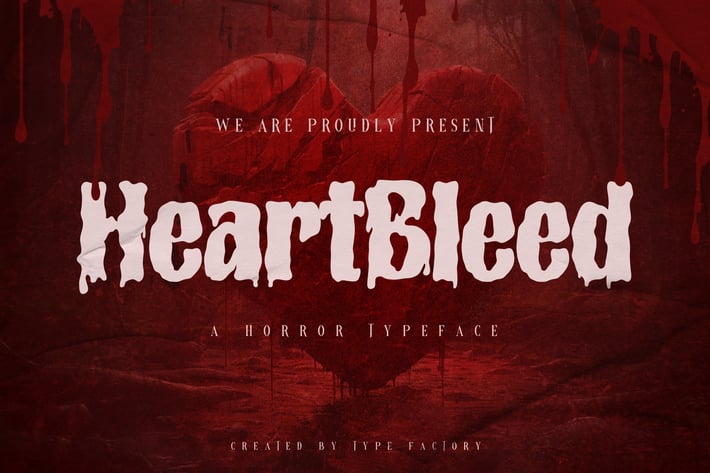
Heartbleed - A Horror Typeface
Heartbleed is a chilling horror typeface designed to evoke fear and unease. With its sharp, dripping letterforms that mimic blood and its dark, sinister aesthetic, Heartbleed is perfect for horror movie posters, haunted house promotions, Halloween designs, and eerie book covers. This typeface captures the essence of terror, making it ideal for projects that require a bold, spine-tingling visual impact. Heartbleed’s haunting style is sure to leave a lasting impression, creating an atmosphere of suspense and dread.